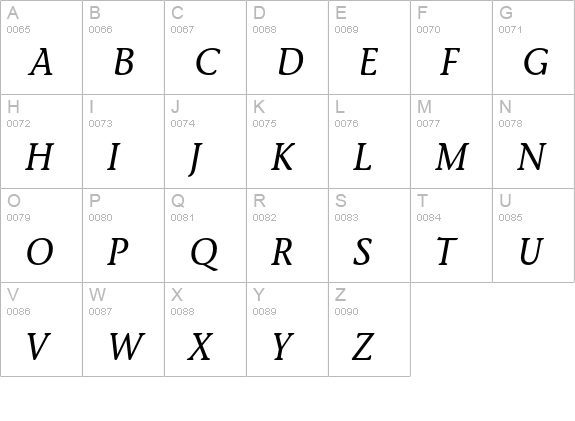
StoneInforEF-MediumItalic Font Details
StoneInforEF-MediumItalic is a modern and stylish font that exudes sophistication and elegance. Its medium weight and italic style make it perfect for adding a touch of flair to any design project. The clean lines and sharp angles of this font give it a contemporary feel that is both professional and eye-catching. One of the best things about StoneInforEF-MediumItalic is that it is completely free to download. You can easily get your hands on this stunning font at FontsMarket.com without having to spend a dime. Whether you're working on a website, a logo, a poster, or any other design project, StoneInforEF-MediumItalic is sure to elevate your work and make it stand out. Don't miss out on the opportunity to enhance your designs with this elegant and versatile font. Download StoneInforEF-MediumItalic for free today and see the difference it can make in your projects!